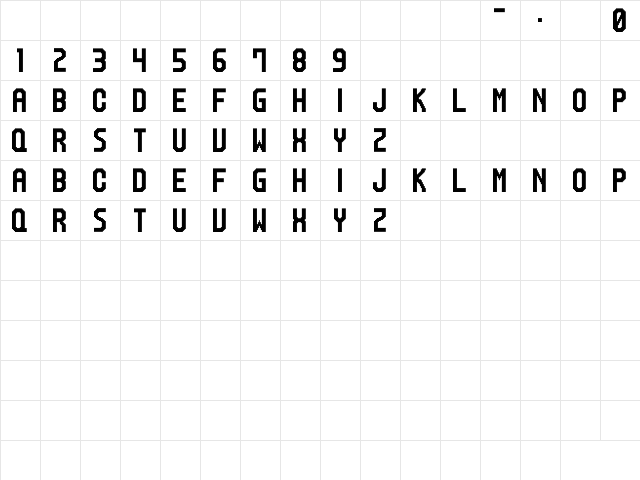
M20_SP-RANKER Regular Font Preview
M20_SP-RANKER Regular
M20_SP-RANKER Regular Font Details
Design Context for M20_SP-RANKER Typeface
M20_SP-RANKER offers clean, dependable letterforms without strong stylistic allegiance, making it a practical choice for designers who need flexibility.